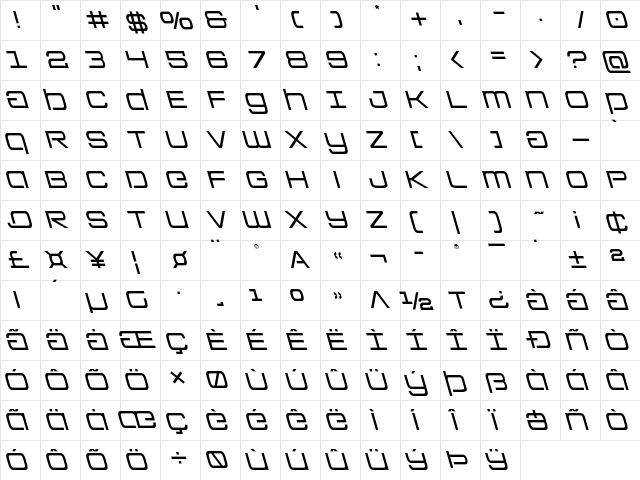
Colony Marines Leftalic Italic
Design Context for Colony Marines Leftalic Typeface
Colony Marines Leftalic takes a measured approach to typography — its balanced proportions and neutral character make it a reliable workhorse for both digital and print work. Its italic angle brings a sense of urgency and motion to the letterforms.
Pro Tip: Use Colony Marines Leftalic for emphasis, pull quotes, and subheadings where its slanted energy can add rhythm to the layout.